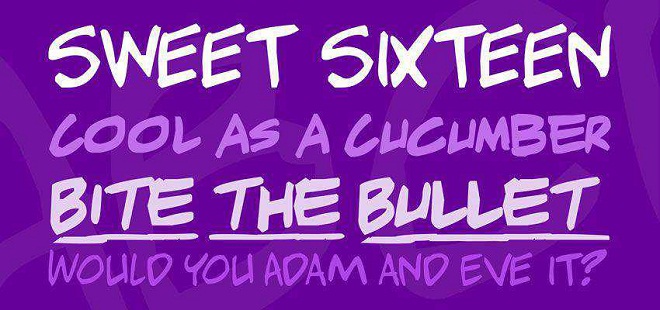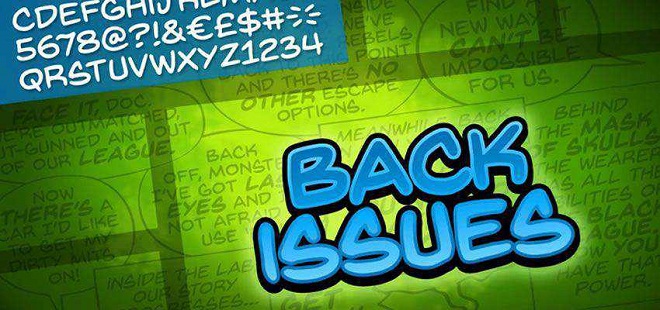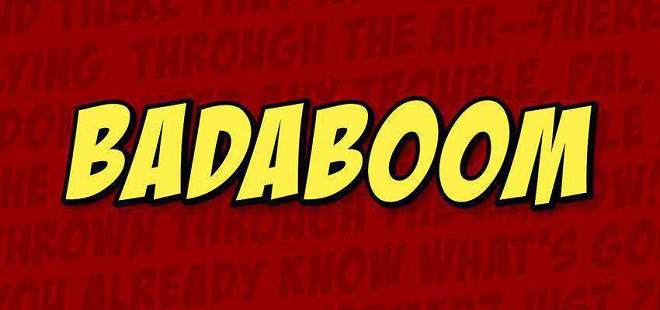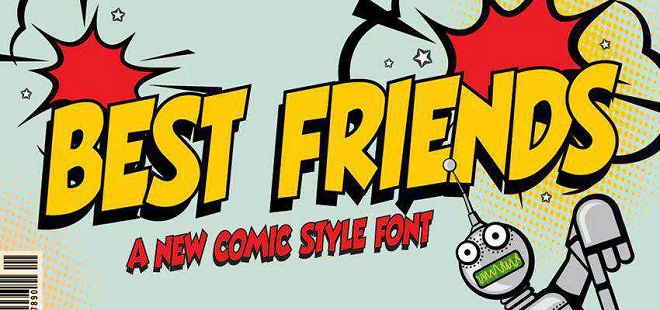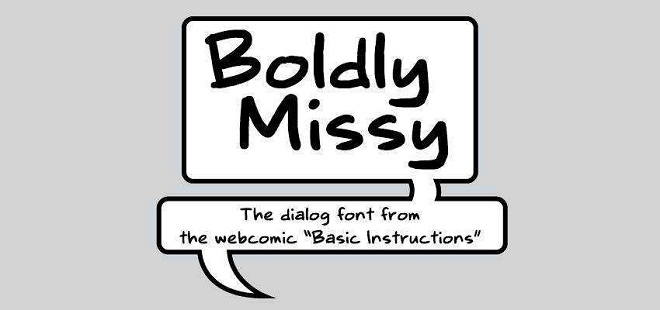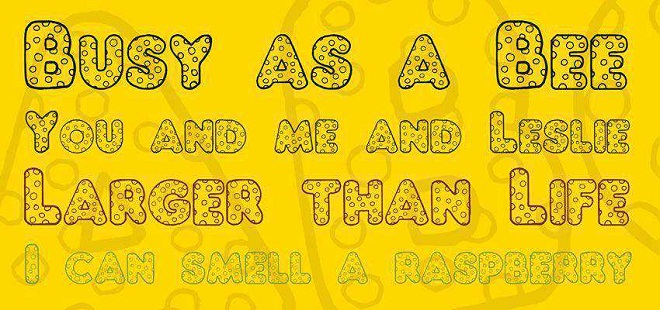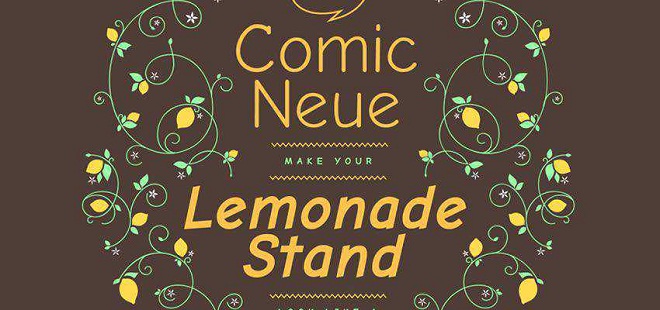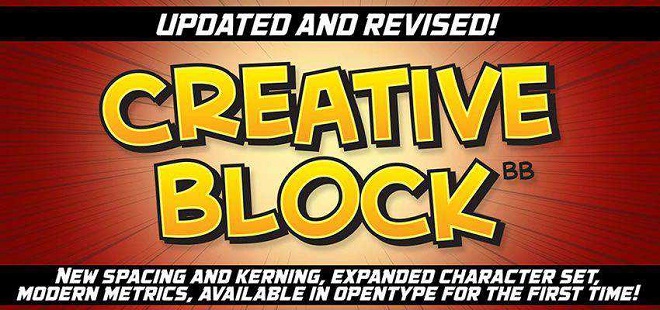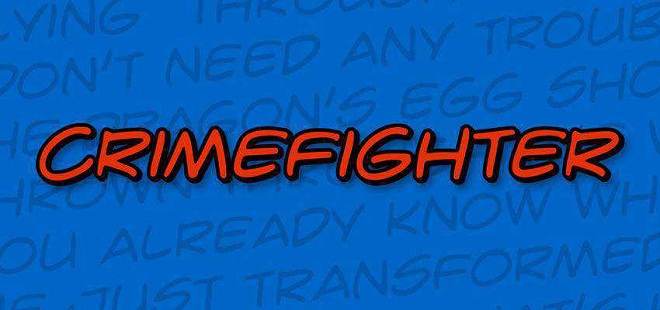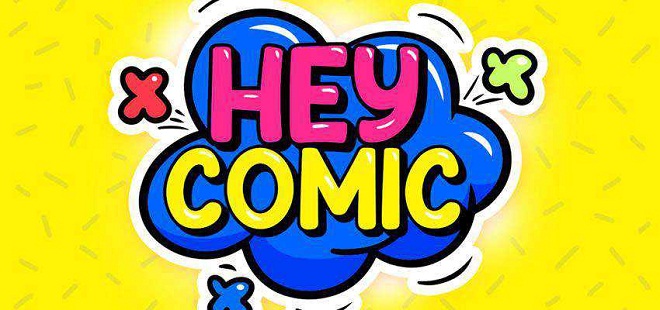
20+ Fun & Free Comic Fonts for Creatives [2026]
Animated typography is all about channeling the whimsical and vibrant energy found in the world of comic books. These typefaces typically feature thick, quirky outlines and organic, hand-crafted silhouettes that mimic ink on paper.
In graphic storytelling, these fonts bring dialogue to life, ensuring a character’s voice feels as expressive as the illustrations themselves. Beyond the page, they are perfect for projects that require a relaxed, joyful vibe—such as birthday invites, youth-focused web design, or indie game interfaces. However, because of their bold personality, they work best when reserved for headlines or punchy callouts. Using them too heavily can hinder readability, so balance is key.
Hey Comic
Reality Check Comic Font
Adam Warren Pro Font Family
Boldly Missy Comic Handwriting Font
Best Friends Comic Font
Badaboom Comic Font
Nikopol Typeface
Komika Font Family
Woodchuck Sans-Serif Font
Cutlass Typeface
Comic Neue Font
Chubby Dotty Font
Little Pea Font
Creative Block Comic Font
Qarmic Sans Font
Simpsonfont
GoodDog Plain Font
Crime Fighter Comic Font
Billy 2.0 Typeface
VTC Letterer Pro Font
Back Issues Comic Font
Kalam on Google Fonts